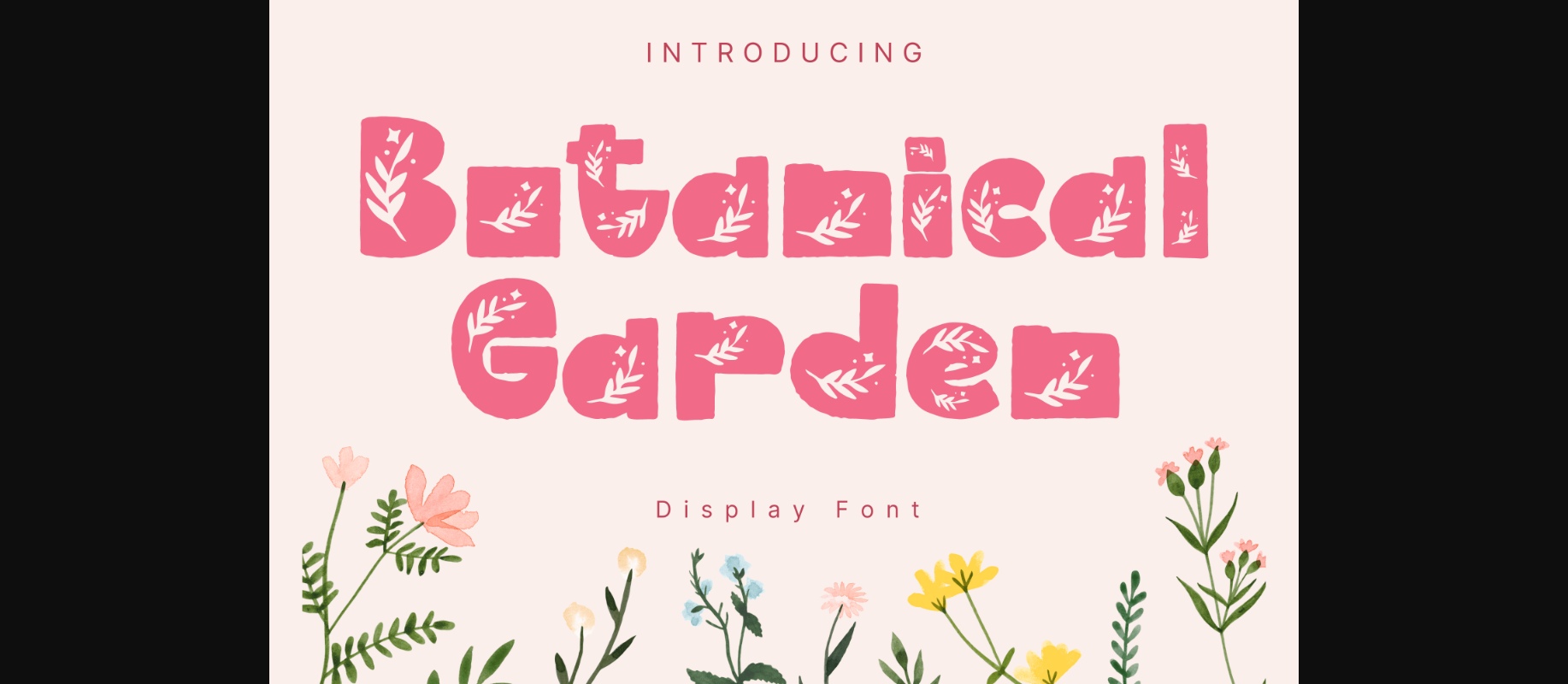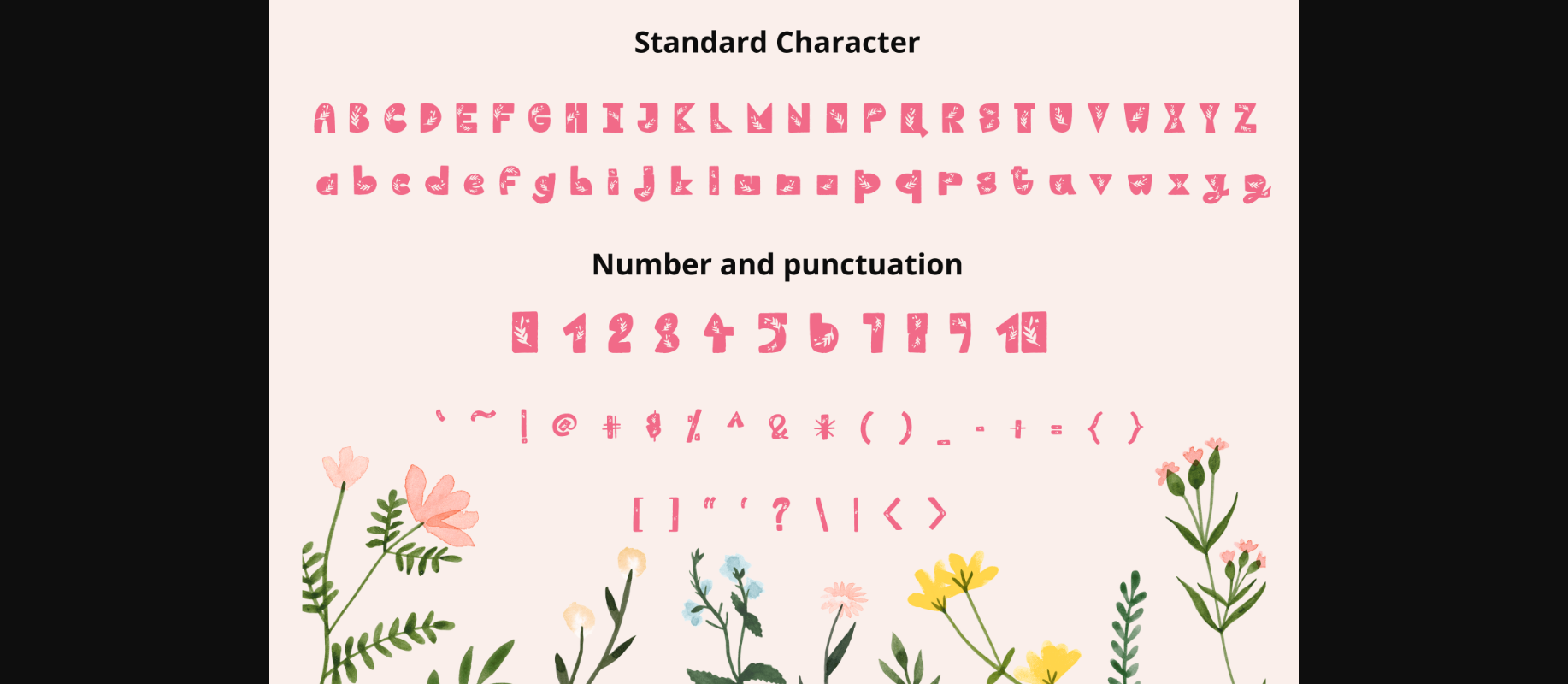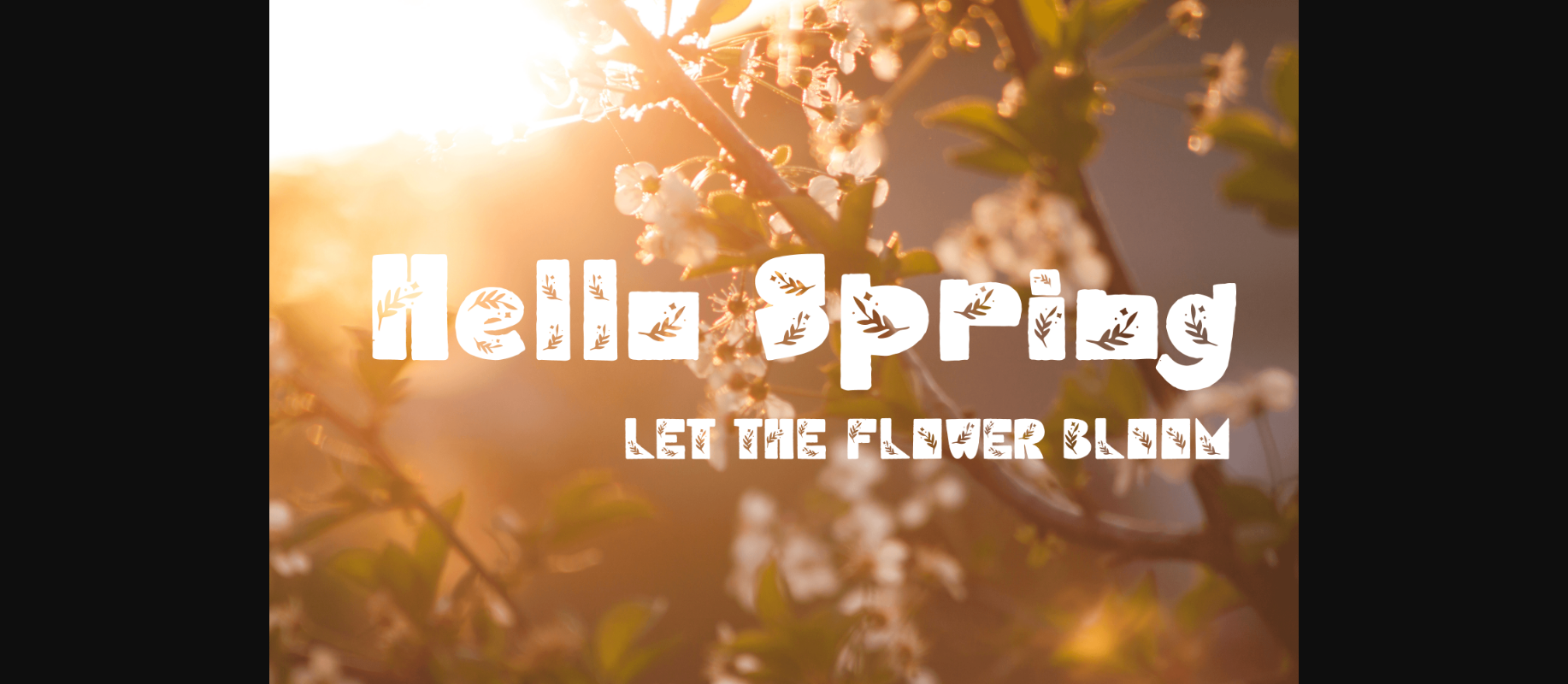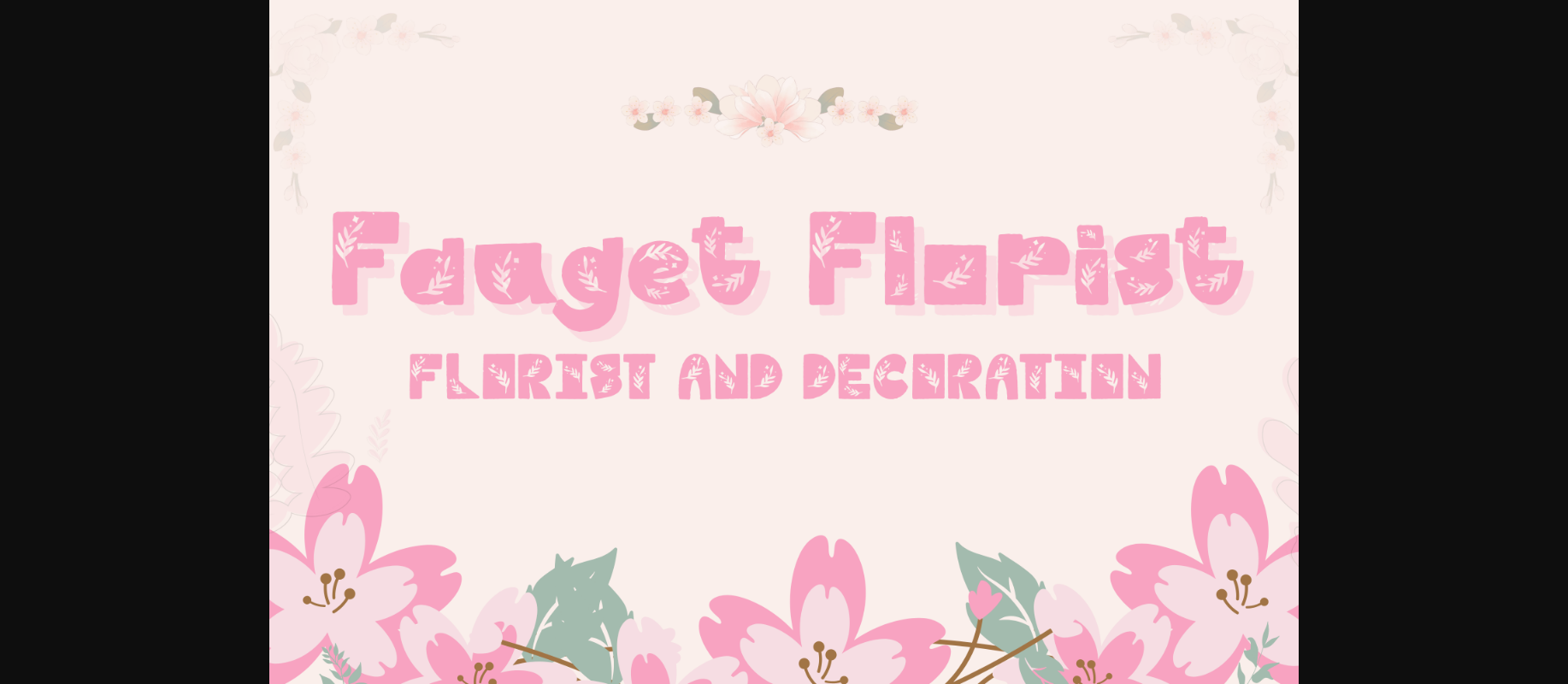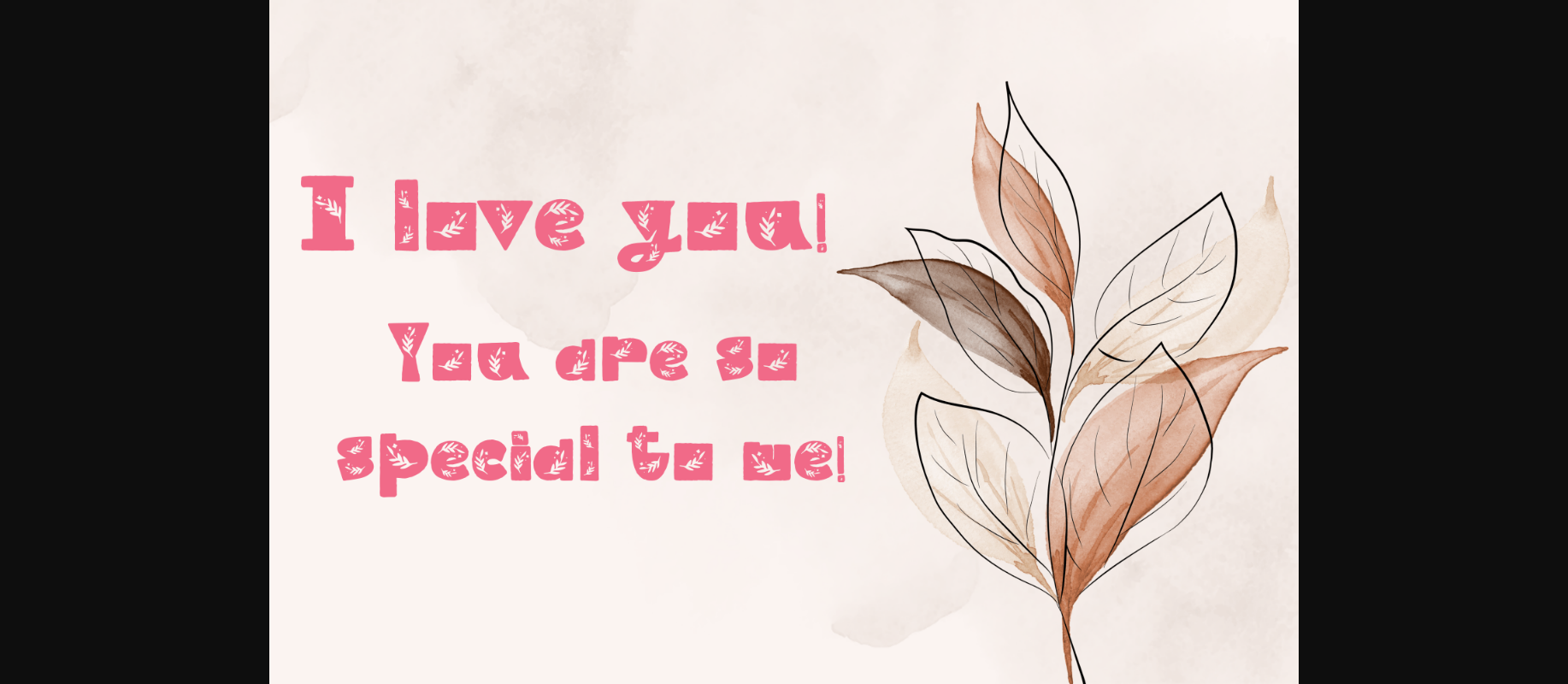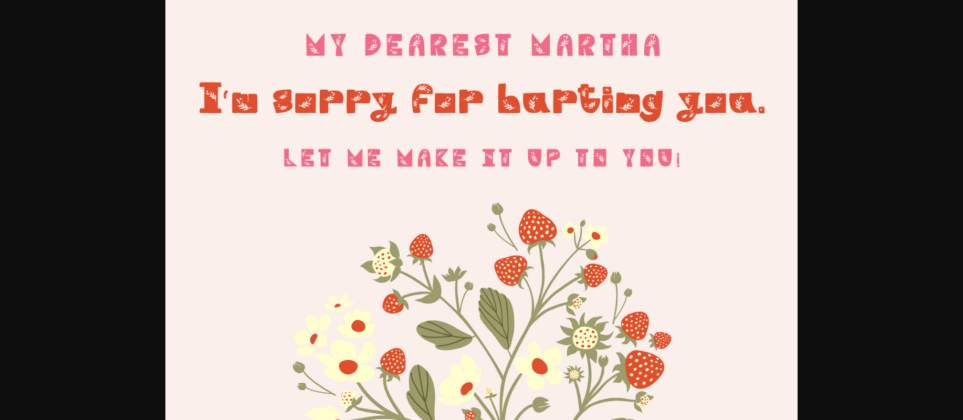
Botanical Garden is a whimsical and adorable decorative font. It can easily be matched to an incredibly large set of projects, so add it to your creative ideas and notice how it makes them stand out!